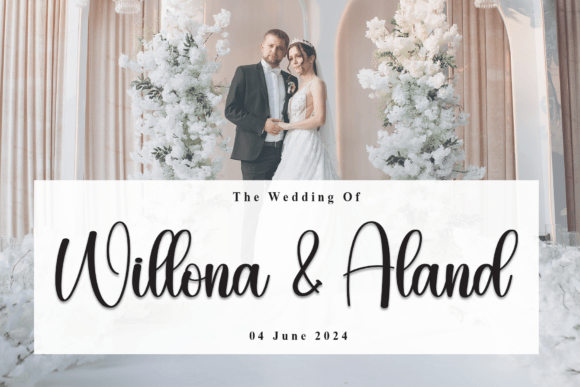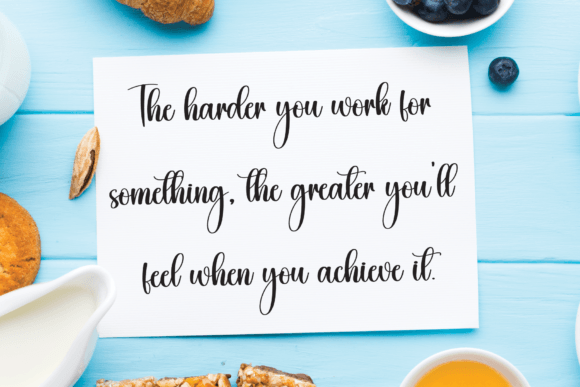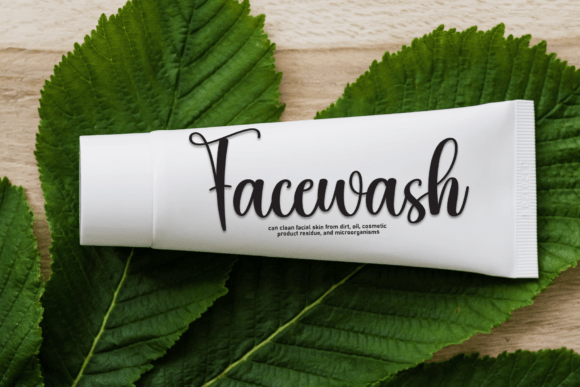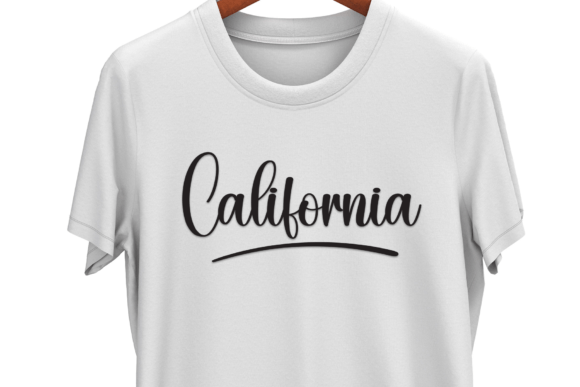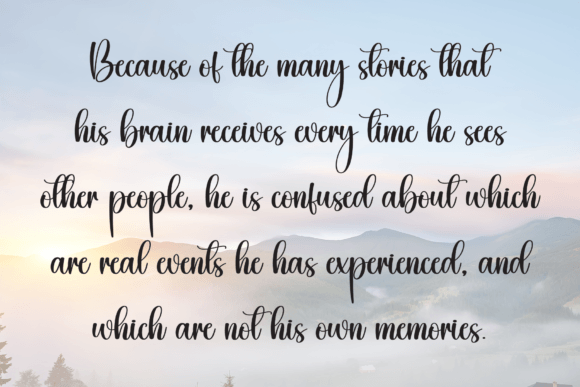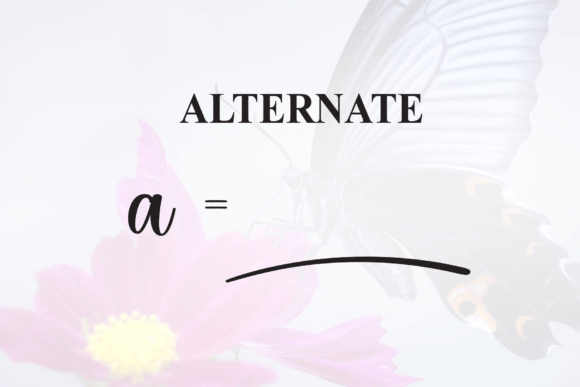
Get Ready to Take Flight with the Butterflies Font
Have you ever sat at your desk, staring blankly at a blank canvas, waiting for inspiration to strike? You know, that moment when everything just clicks and your creative juices start flowing? For designers, this moment is a sacred thing – and it’s exactly what the Butterflies Font is designed to help you achieve. This sweet and friendly handwritten font is the perfect companion for any creative project, from wedding invitations to children’s book illustrations.
With its natural and unique style, the Butterflies Font is incredibly versatile, making it the perfect addition to a wide range of designs. Whether you’re a seasoned pro or just starting out, this font is sure to add a touch of magic to your work. So why settle for a generic, run-of-the-mill font when you can take your designs to new heights with the Butterflies Font?
- Unique Characteristics: The Butterflies Font features intricate, hand-drawn illustrations of butterflies, making it a unique and eye-catching choice for designers.
Butterflies Font Review
When I first laid eyes on the Butterflies Font, I was immediately drawn in by its whimsical, hand-drawn feel ✨. The font’s organic, fluid lines evoke the very essence of its namesake, transporting me to a world of delicate beauty. The subtle imperfections and variations in stroke width give the font a charming, human touch that’s hard to resist.
One of the font’s greatest strengths is its versatility ✨. It works beautifully for titles, headings, and even body text, making it an excellent choice for a wide range of applications, from branding and marketing materials to digital products and publications. The font’s soft, dreamy quality also lends itself particularly well to creative and artistic projects.
However, I do have a few reservations ⚠️. The font’s cursive style can be a bit too loose and difficult to read in certain contexts, particularly in smaller sizes or when used for large blocks of text. Additionally, the font’s lack of bold or italic styles may limit its utility in certain situations.
- Best suited for: titles, headings, creative projects, branding and marketing materials
- Not ideal for: large blocks of text, smaller sizes, situations requiring bold or italic styles
Overall, I think the Butterflies Font is a beautiful, charming addition to any designer’s toolkit. While it may have some limitations, its unique personality and versatility make it a worthwhile investment for any project that calls for a touch of whimsy and elegance.
Tips for Getting the Most Out of the Butterflies Font
Use the Butterflies Font to add a whimsical touch to your designs. It pairs well with floral patterns and pastel colors.
Use the font in combination with other creative elements, such as illustrations or graphics, to create a unique and eye-catching design.
The Butterflies Font is ideal for:
Children’s books and educational materials
Floral-themed designs and packaging